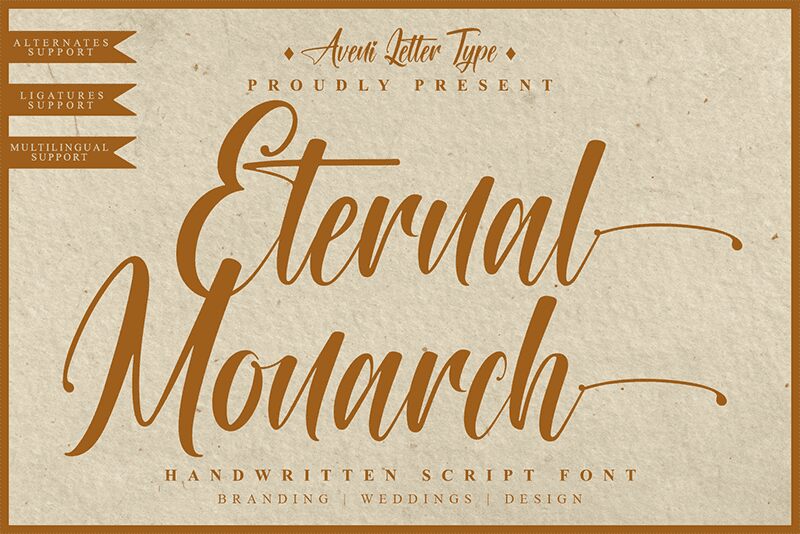
Eternal Monarch by Aveni Letter Type is a striking handwritten font with a condensed width that exudes elegance and sophistication. Its flowing, meticulously crafted characters impart an air of regal grace, making it perfect for designs seeking a luxurious touch.
Ideal for high-end branding, wedding invitations, and fashion editorials, Eternal Monarch's aesthetic appeal lies in its graceful strokes and compact form. This font seamlessly marries delicacy with boldness, promising to elevate any project to a realm of timeless beauty.